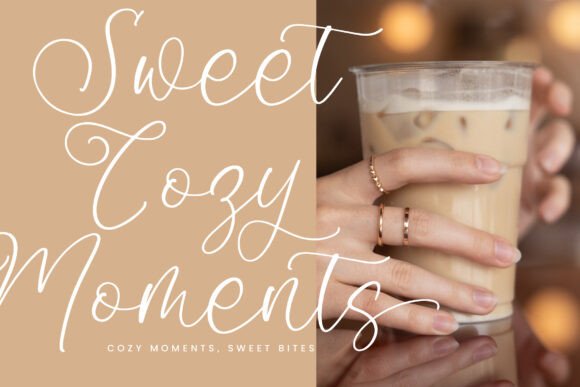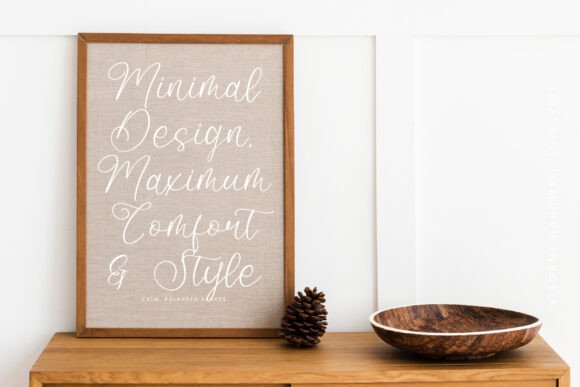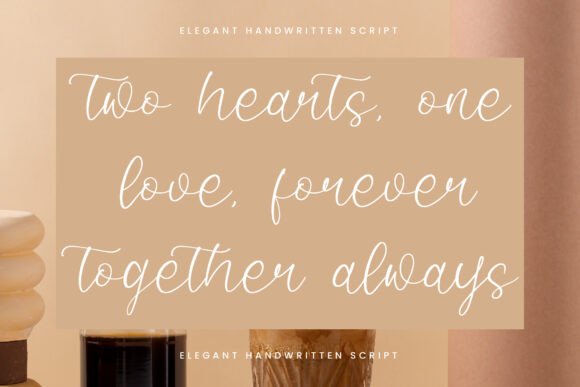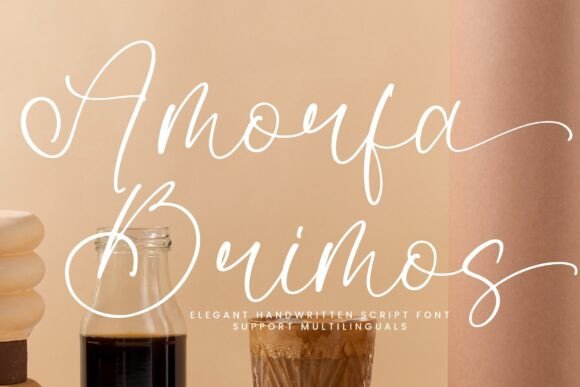
The Quest for Elegance: Discovering Amorfa Brimos Font
I’ll never forget the time I was working on a wedding invitation project, and my client asked for a font that exuded romance and luxury. I scoured the internet, tried countless fonts, but nothing seemed quite right. That was until I stumbled upon Amorfa Brimos Font. With its soft curves, elegant swashes, and flowing rhythm, it was love at first sight! In this article, I’ll share my experience with Amorfa Brimos, its features, and how to make the most of it in your designs.
Amorfa Brimos Font: A Personal Review
- ✨ Elegant and luxurious feel, perfect for high-end projects
- ✅ Soft curves and flowing rhythm that add a touch of romance
- 💫 Beautiful swashes and glyphs that enhance the overall aesthetic
- 🎨 Highly versatile, suitable for various design applications
While Amorfa Brimos is an exceptional font, there are a few things to keep in mind:
- 🤔 May require some adjustments for optimal spacing and kerning
- ⚠️ Limited availability of certain characters or glyphs
The Story Behind Amorfa Brimos Font
Amorfa Brimos was designed by a talented typographer who sought to create a font that embodied the essence of romance and luxury. Inspired by traditional calligraphy and handwritten scripts, Amorfa Brimos is the result of meticulous craftsmanship and attention to detail.
| Font Name | Amorfa Brimos Font |
| Author | integritypestudio |
Q: What is Amorfa Brimos Font best suited for?
A: Amorfa Brimos is perfect for wedding invitations, signature logos, feminine branding, and upscale packaging.
Q: Is Amorfa Brimos a difficult font to work with?
A: While Amorfa Brimos has some unique features, it’s relatively easy to work with. With some practice and experimentation, you’ll be able to unlock its full potential.